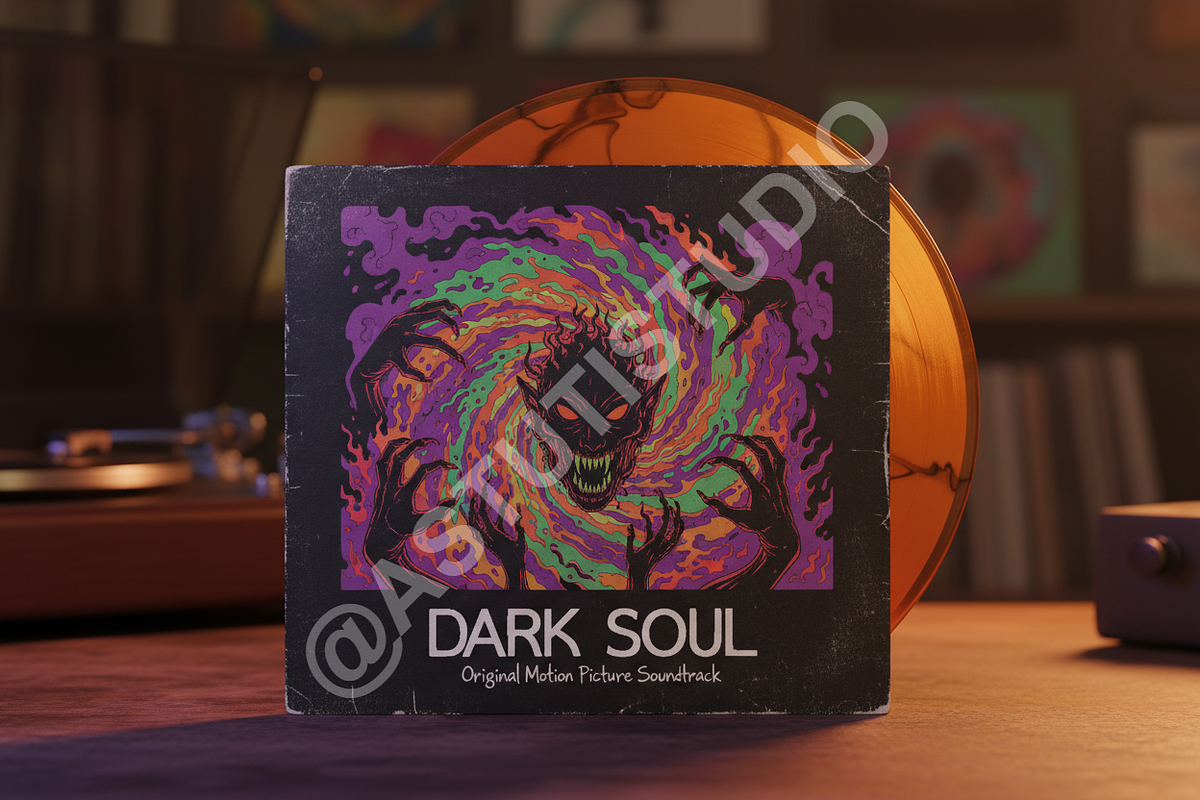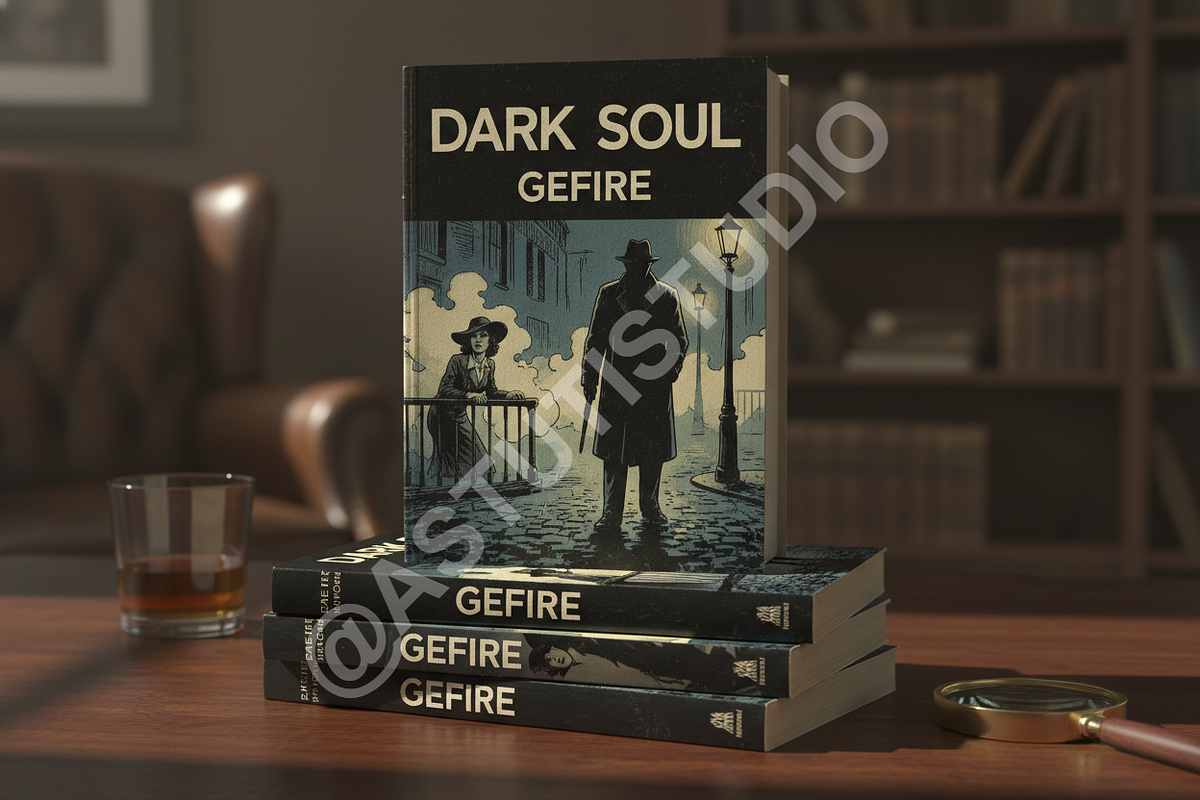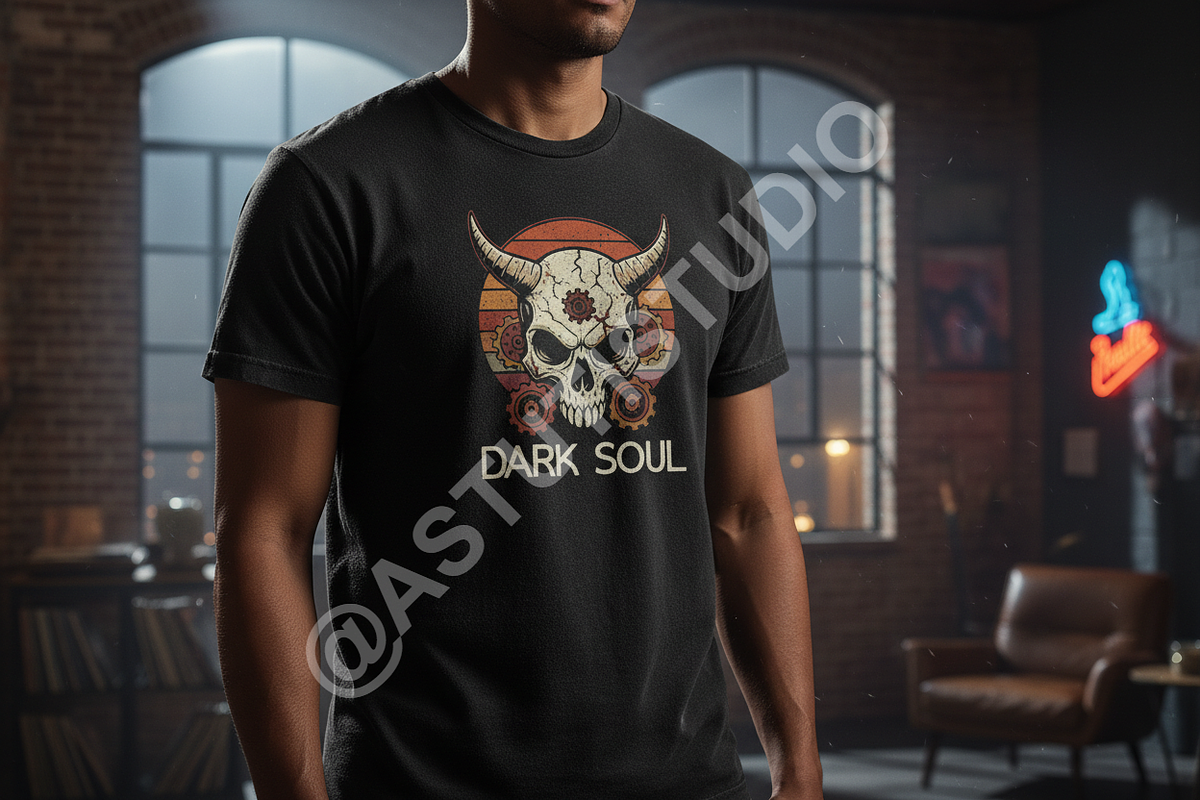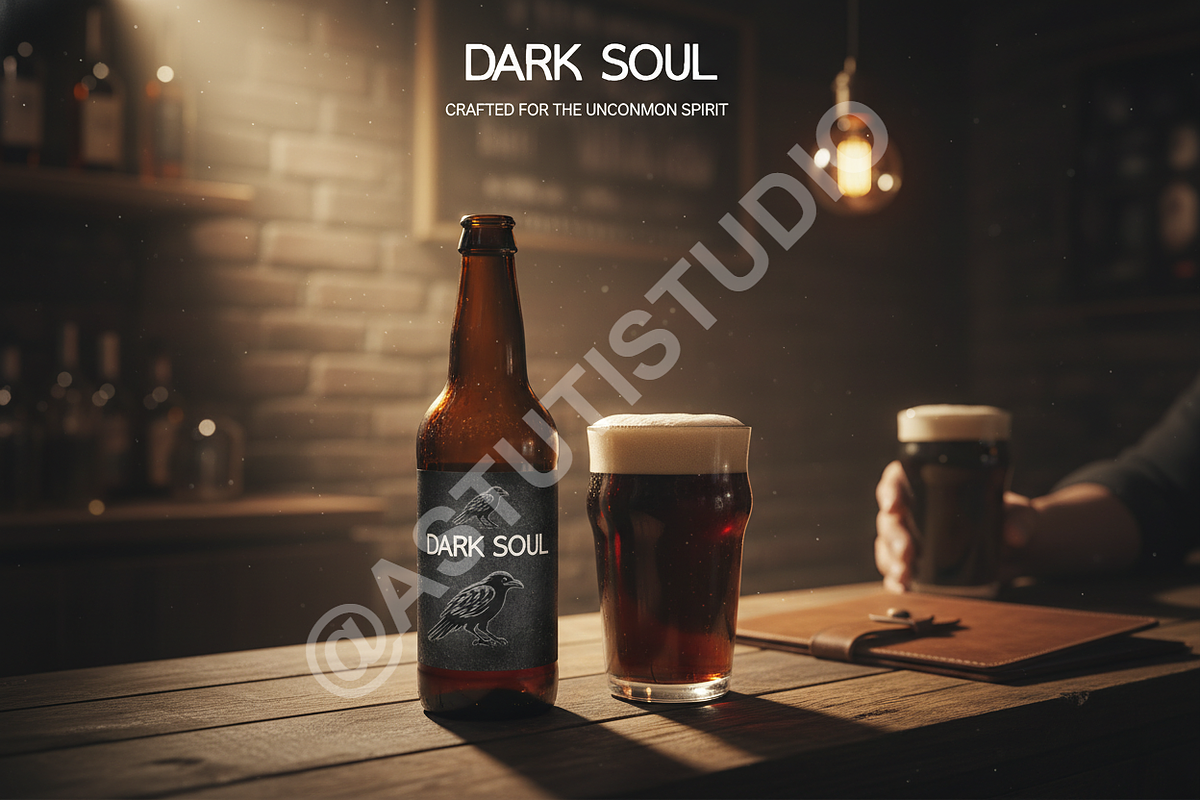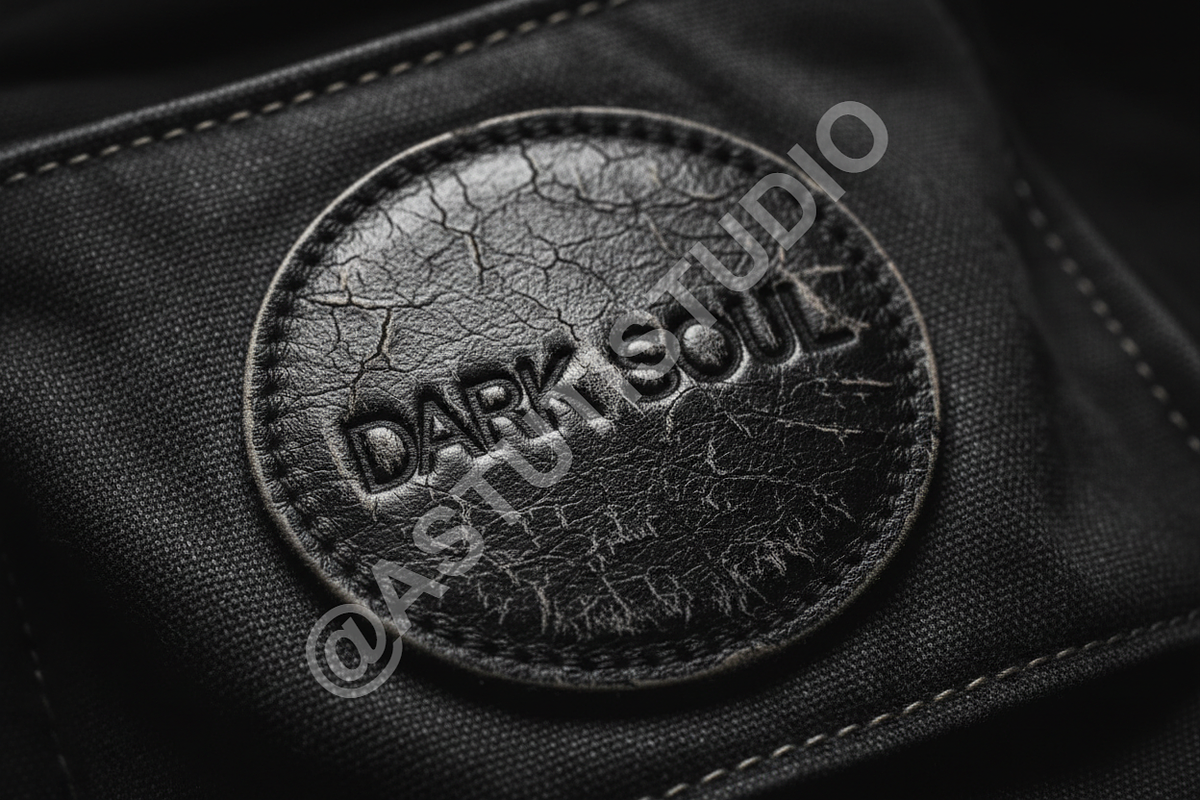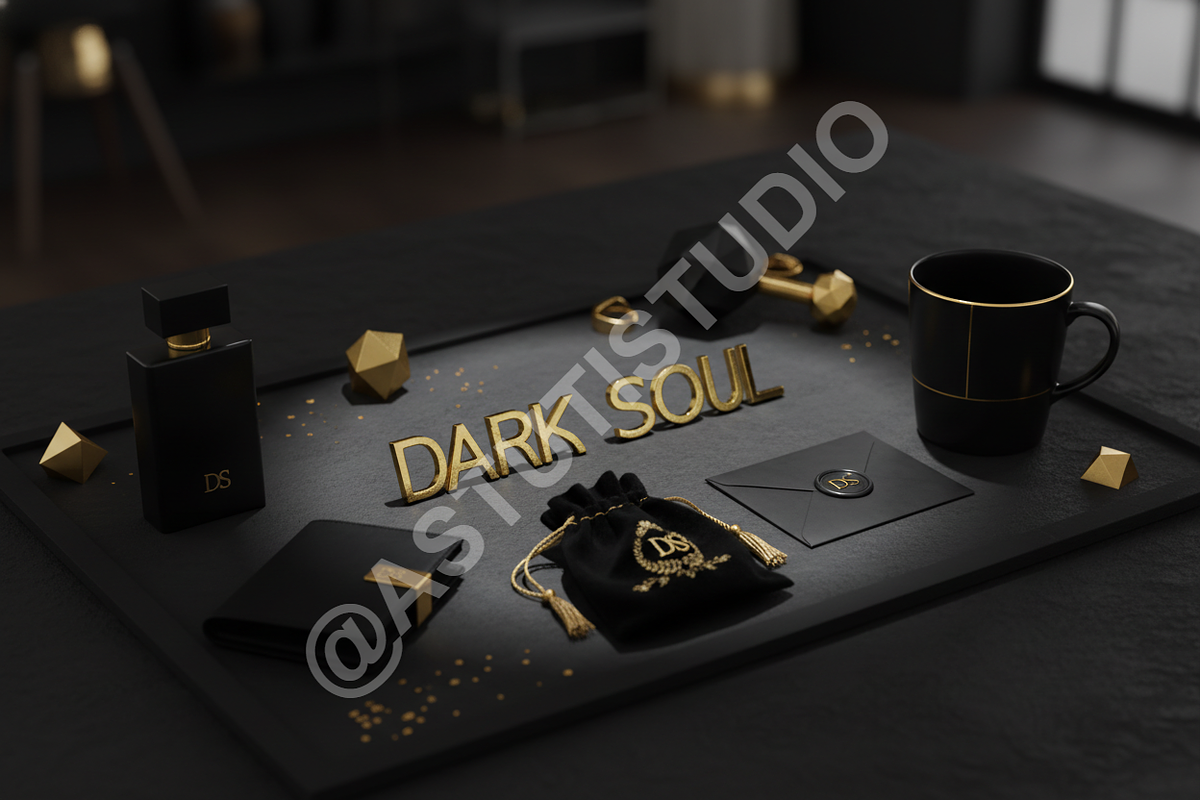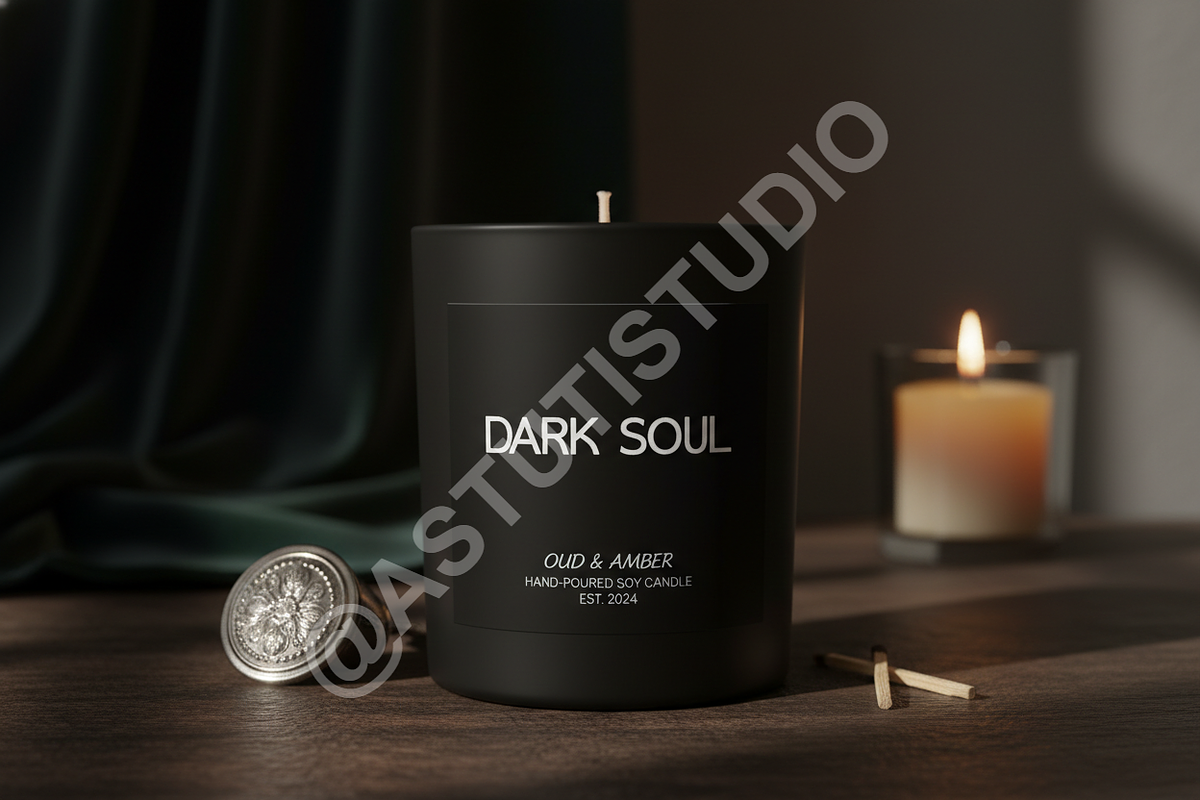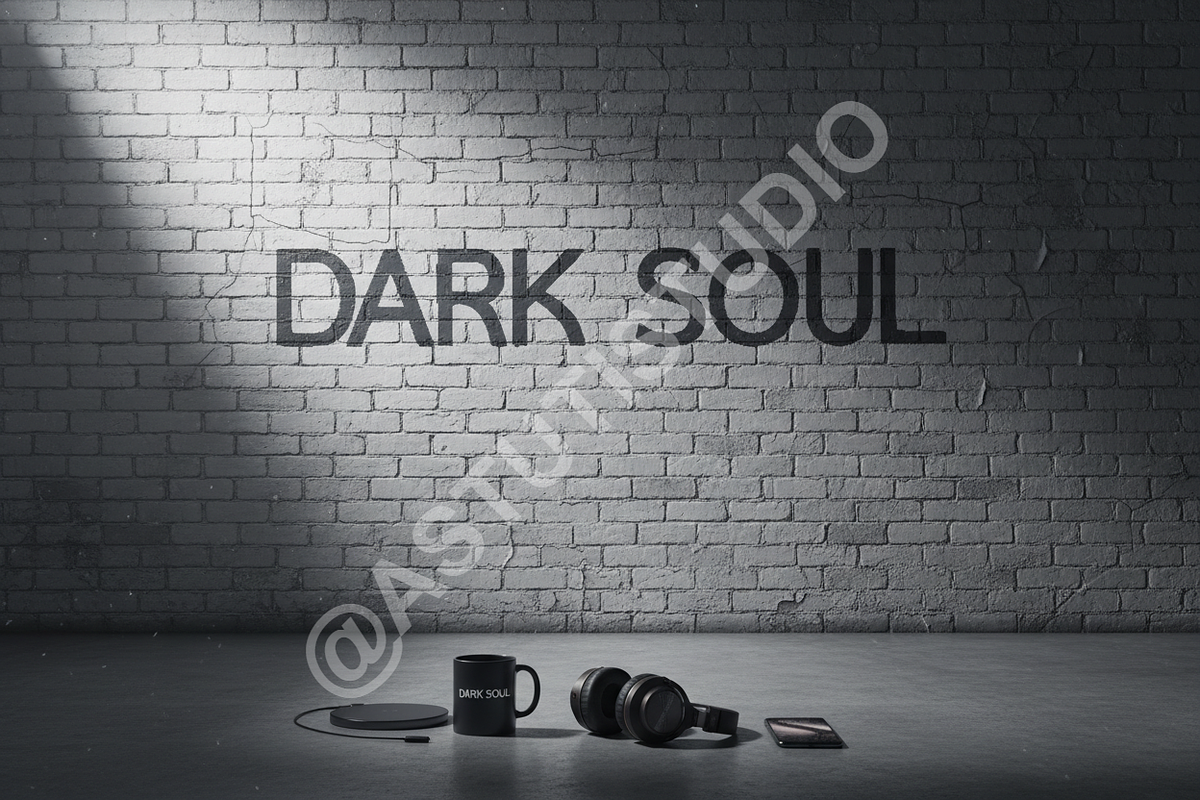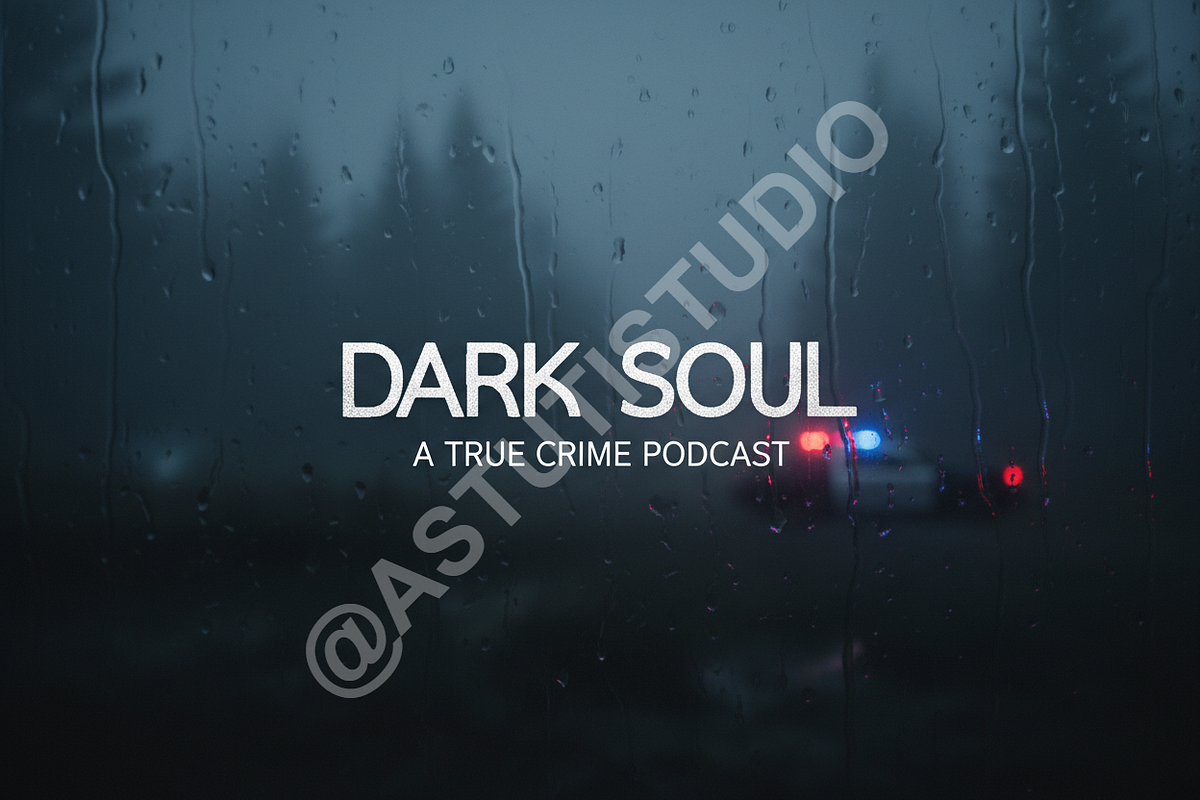
Gefire: Luxury High-Contrast Display
Introducing Gefire, an exquisitely crafted high-contrast serif typeface designed to elevate the standard of luxury branding. Gefire strikes a perfect balance between timeless elegance and modern sophistication, making it the ideal choice for projects demanding prestige and visual impact. Its sharp terminals and delicate curves command attention, ensuring your design narrative is communicated with unparalleled refinement.
=== Key Features ===
• Opulent High-Contrast Design: Bold strokes paired with razor-thin hairlines create a dramatic visual appeal. • Comprehensive Ligatures & Alternates: Over 50 unique glyph combinations and stylistic variations for custom, authentic typography. • Multilingual Support: Extended Latin character set supporting 100+ global languages. • PUA Encoded: Accessible without specialized design software, making all extras easy to use. • Optimal for Display: Masterfully kerned for headline use, magazine spreads, luxury packaging, and high-end social media campaigns.